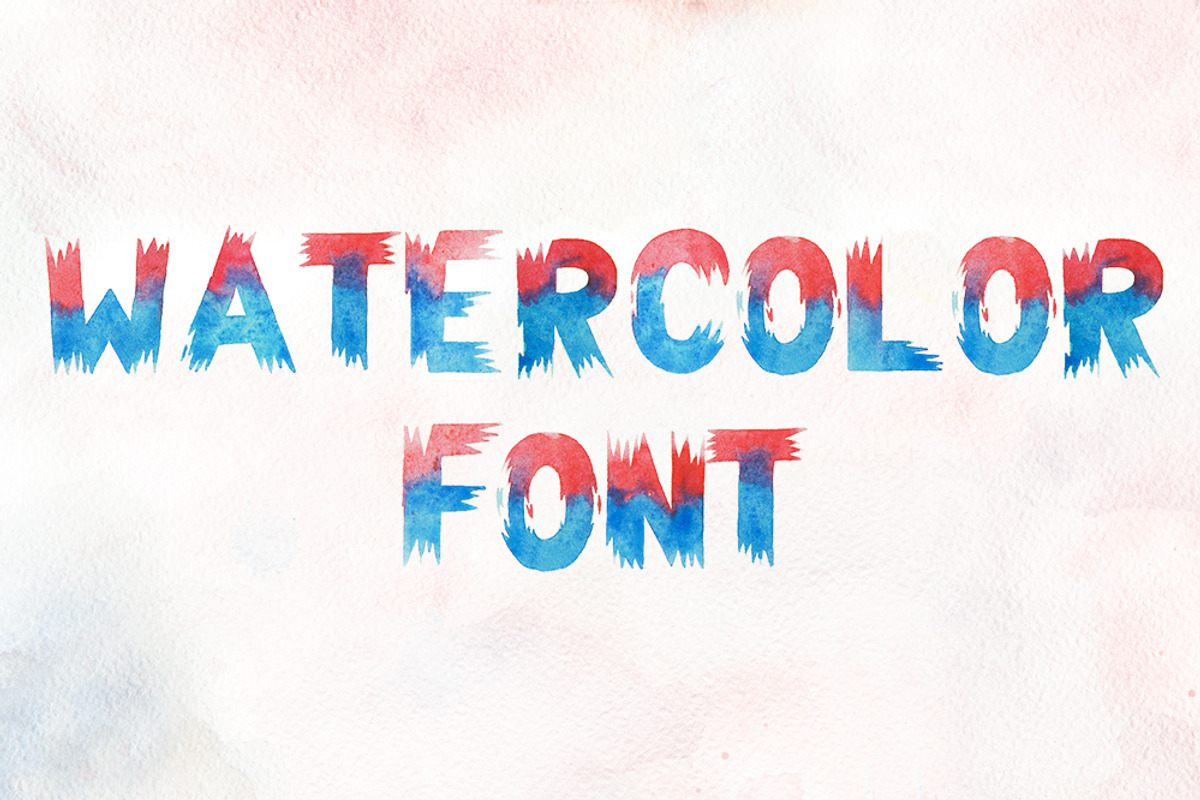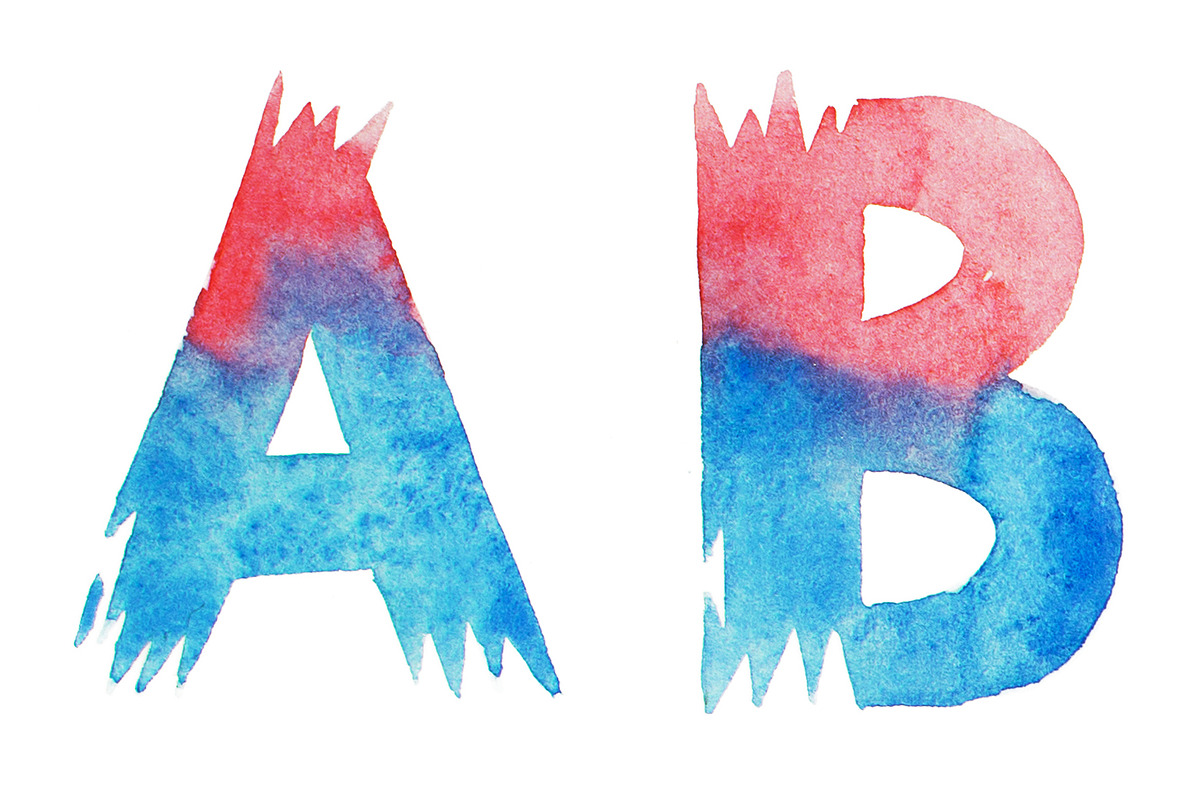
Watercolor font
This colorful watercolor font was crafted with love and the Photoshop add-on, Fontself: https://creativemarket.com/fontself/1098612-Fontself-Make-fonts-in-Photoshop